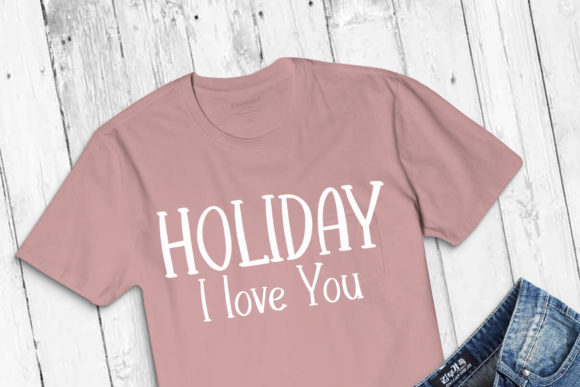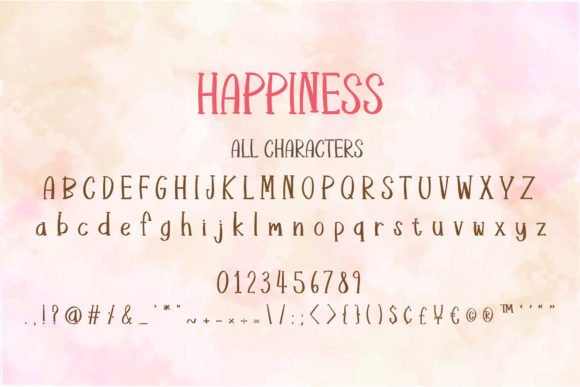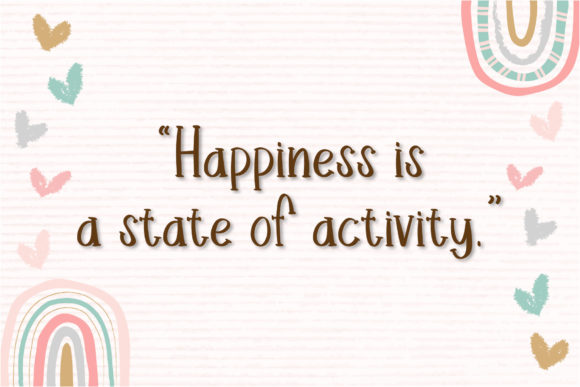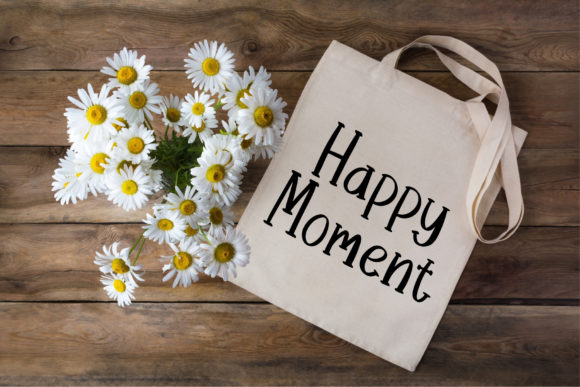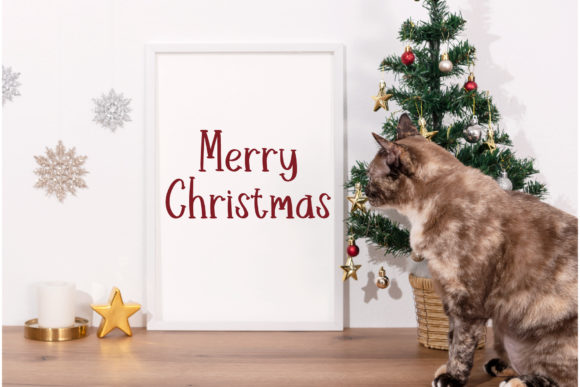
Happiness Font: The Perfect Choice for Your Creative Projects
Are you looking for a font that can add a touch of playfulness and friendliness to your designs? Look no further than the Happiness Font! This adorable display font is perfect for creating social media posts, posters, cards, and greeting cards that are sure to bring a smile to your audience’s faces.
What is Happiness Font?
Happiness Font is a cute and friendly display font that is designed to add a playful and quirky touch to your designs. Its unique and charming look makes it perfect for a variety of creative projects, from social media graphics to print materials. Whether you’re a designer, crafter, or simply someone who loves to create, Happiness Font is a great addition to your font collection.
Key Features of Happiness Font
- Playful and Quirky Look: Happiness Font has a unique and charming look that is sure to add a touch of playfulness to your designs.
- Cute and Friendly: This font is designed to be friendly and approachable, making it perfect for creating designs that are fun and engaging.
- Display Font: Happiness Font is a display font, making it perfect for headlines, titles, and other large text elements.
- Easy to Read: Despite its playful look, Happiness Font is easy to read, making it perfect for creating designs that are both fun and functional.
Uses for Happiness Font
Happiness Font is a versatile font that can be used for a variety of creative projects, including:
- Social Media Posts: Add a touch of playfulness to your social media posts with Happiness Font.
- Posters: Create eye-catching posters with Happiness Font that are sure to grab attention.
- Cards and Greeting Cards: Add a personal touch to your cards and greeting cards with Happiness Font.
- Crafting Projects: Happiness Font is perfect for crafters who love to create handmade cards, gift tags, and other paper crafts.
Why Choose Happiness Font?
There are many fonts to choose from, but Happiness Font stands out for its unique and charming look. Here are just a few reasons why you should choose Happiness Font for your next project:
- Unique Look: Happiness Font has a unique and playful look that is sure to add a touch of personality to your designs.
- Versatile: Happiness Font can be used for a variety of creative projects, from social media graphics to print materials.
Tips for Using Happiness Font
Here are a few tips for using Happiness Font in your designs:
- Use it as a Headline Font: Happiness Font is perfect for headlines and titles, so use it to add a touch of playfulness to your designs.
- Pair it with Other Fonts: Happiness Font can be paired with other fonts to create a unique and interesting look.
- Experiment with Colors: Happiness Font looks great in a variety of colors, so don’t be afraid to experiment and find the perfect color for your design.
| Author | AquariiD |
Happiness Font is a cute and friendly display font that is perfect for adding a touch of playfulness to your designs. Its unique and charming look makes it perfect for a variety of creative projects, from social media graphics to print materials. Whether you’re a designer, crafter, or simply someone who loves to create, Happiness Font is a great addition to your font collection.